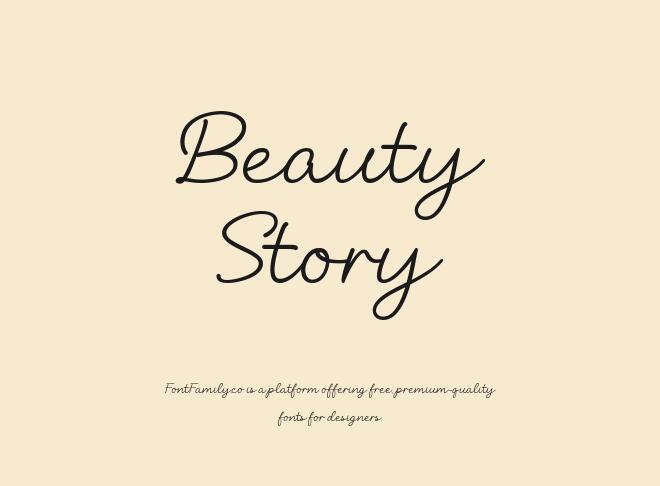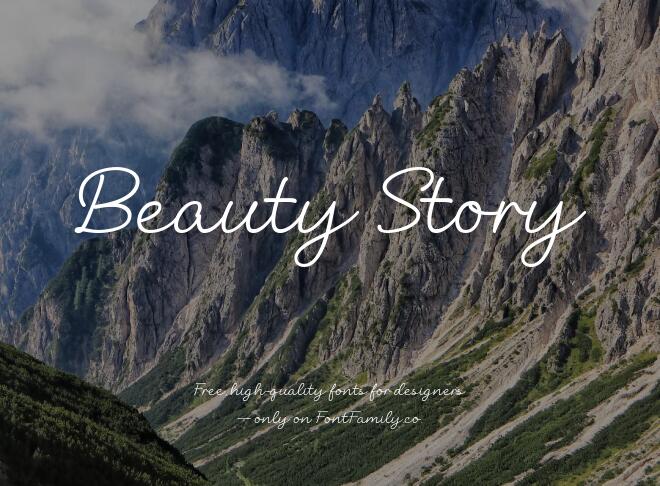
Beauty Story Font
Beauty Story Font is a charming, elegant handwritten script font. With its fluid, organic shapes and delicate lines, it evokes a sense of sophistication and grace. It’s reminiscent of classic calligraphy, yet has a modern twist that makes it perfect for a wide range of design projects. From wedding invitations and greeting cards to branding and advertising campaigns, Beauty Story Font adds a touch of class and personality. It pairs beautifully with both serif and sans serif fonts, offering versatility in design composition. Its distinctive style sets it apart from other fonts, making it a unique choice for designers seeking to make a statement. With Beauty Story Font, every design tells a beautiful story.